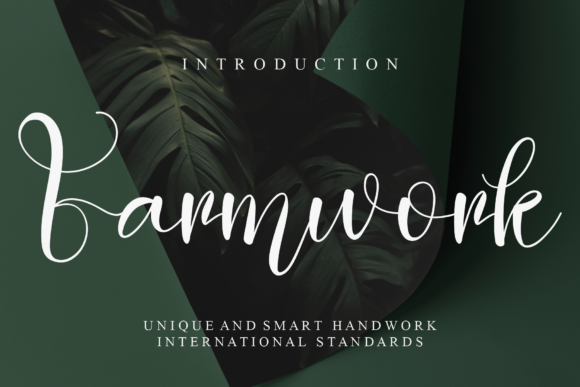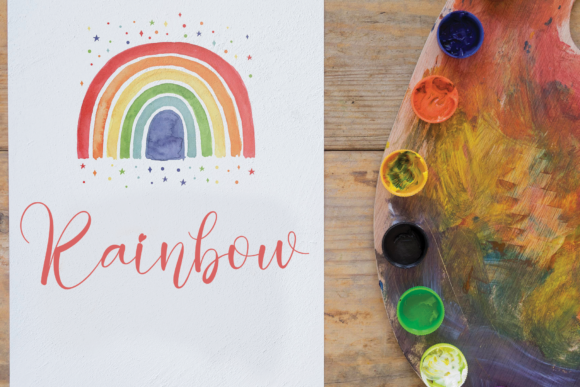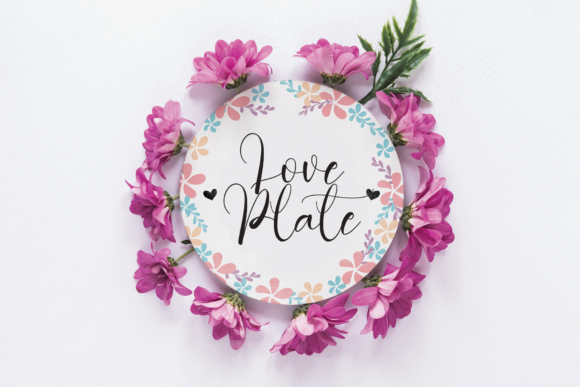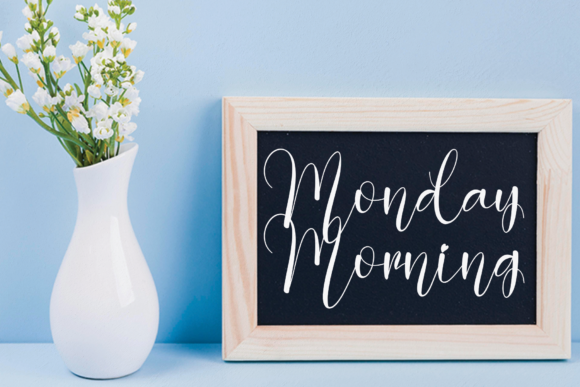
Farmwork Font
About Farmwork Font
Farmwork is a special and creative handwritten font with elegant characters that impress with their style! Use this gorgeous typeface to add a lovely accent to labels, product designs, watermarks, photography, and so much more!